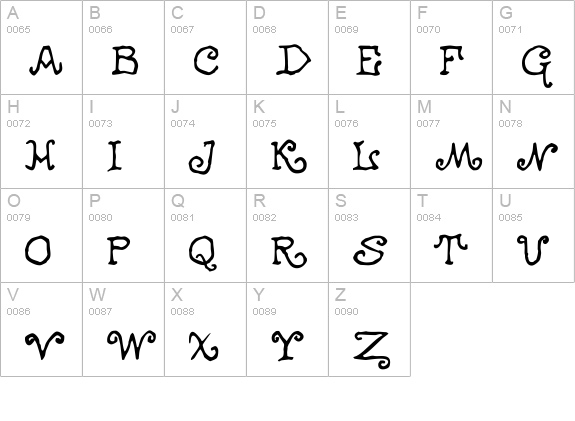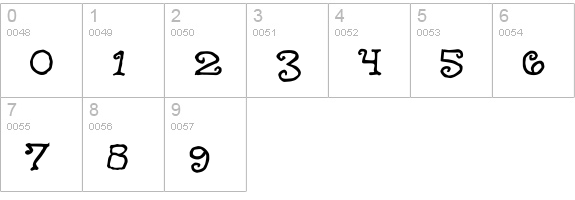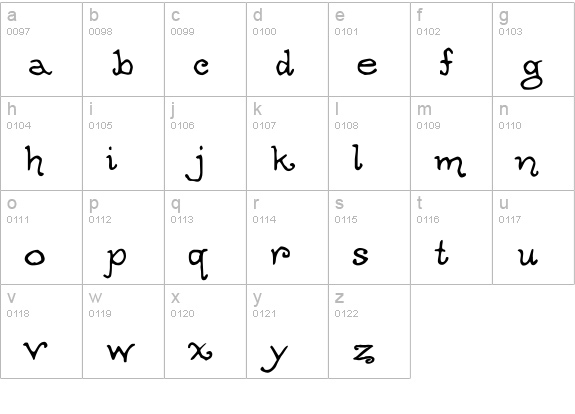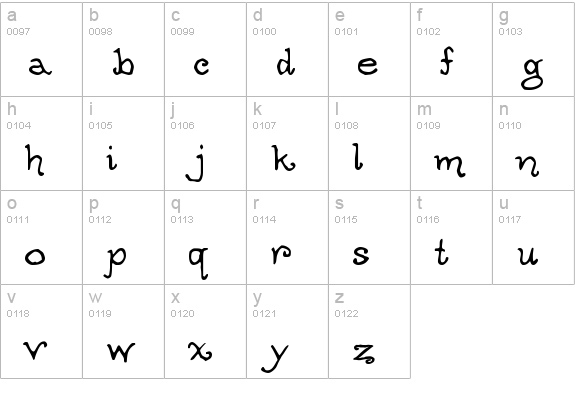
OgdredWeary Font Details
OgdredWeary font is a whimsical and quirky typeface that exudes a sense of playfulness and charm. With its unique and stylized letterforms, this font is perfect for adding a touch of personality to your designs. The OgdredWeary font is freely available to download at FontsMarket.com, making it accessible to all designers looking to add a fun and creative element to their projects. Whether you're working on a poster, logo, or any other design project, OgdredWeary font is sure to make a bold statement and captivate your audience. Let your creativity shine with this delightful and free-to-use font!